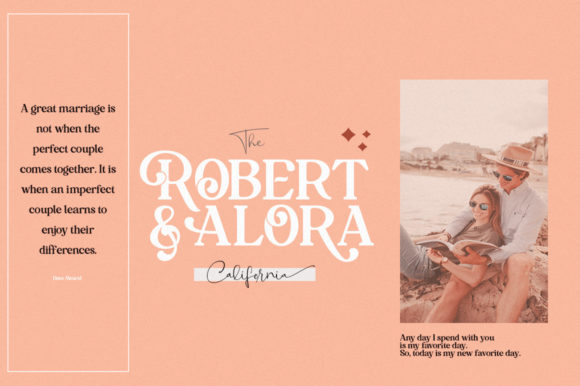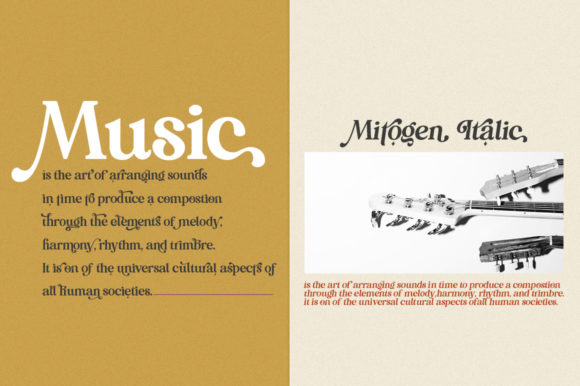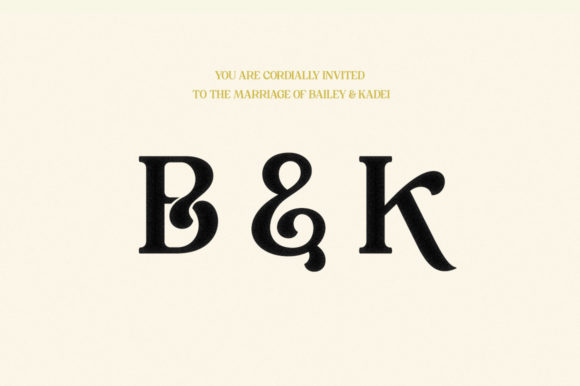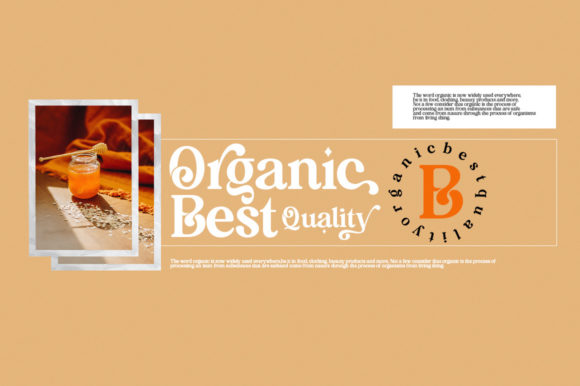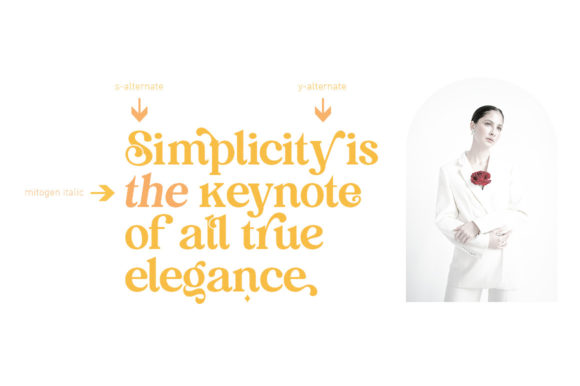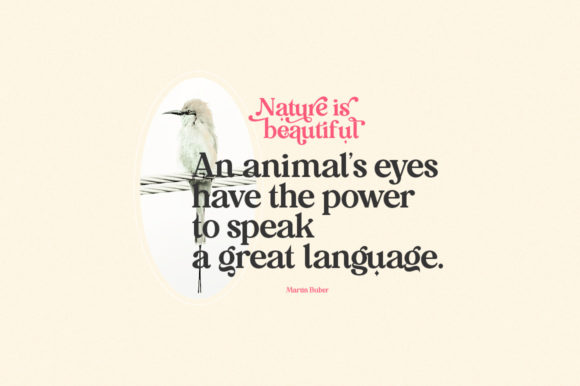
Introduction to Mitogen Font
Have you ever been working on a creative project, and you just can’t seem to find the right font to give it that extra oomph? I know I have! Whether it’s a digital art piece, a handmade card, or a branding design, the right font can make all the difference. That’s why I’m excited to introduce you to the Mitogen Font, a beautifully designed duo that’s sure to elevate your next project.
Key Features of Mitogen Font
- High-quality design resource suitable for various creative projects, including digital art and graphic design.
- Features a unique and distinctive style that sets it apart from other fonts, making it perfect for designers who want to add a touch of personality to their work.
- Supports a wide range of languages, making it a versatile choice for designers working on projects that require multilingual support.
Honest Review: Mitogen Font
As a designer, I’m always on the lookout for high-quality design resources to elevate my creative projects. Recently, I had the chance to work with the Mitogen Font, and I must say, it’s been a game-changer.
- ✨ High-quality typography: The Mitogen Font boasts clean lines, smooth curves, and a unique character set that makes it perfect for a wide range of creative projects.
- ✨ Versatile: Whether you’re working on a logo, a brochure, or a website, the Mitogen Font adapts seamlessly to any design style.
- ⚠️ Limited character set: Although the font has a unique character set, it would be beneficial to see more language support and additional characters to make it more versatile.
Overall, I’m impressed with the Mitogen Font’s high-quality typography and versatility. While it has some limitations, it’s an excellent resource for any designer looking to add a unique touch to their creative projects.
How to Use Mitogen Font
Introduction to Mitogen Font
Mitogen Font is a high-quality design resource that offers a unique and creative touch to any project. With its transparent background and elegant design, it’s perfect for designers and artists looking to add a professional touch to their work.
Tips for Getting the Most Out of Mitogen Font
To get the most out of Mitogen Font, use it in conjunction with other design elements, such as graphics and images. Experiment with different font sizes, colors, and styles to create unique and eye-catching designs.
Mitogen Font is perfect for a variety of creative projects, including:
- Document design